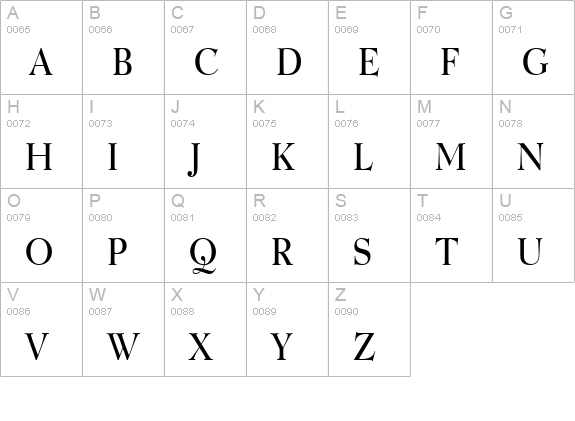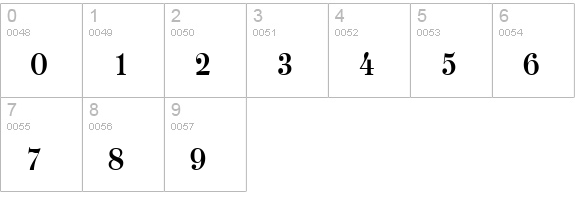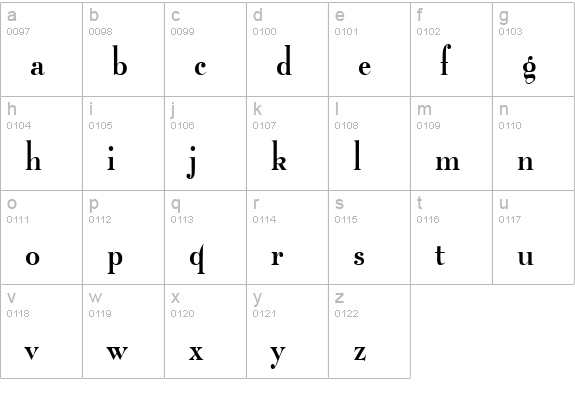
Luciano Condensed Normal is the standard, neutral, condensed-width variant in the Luciano typeface family \xE2\x80\x94 well suited to general body text, paragraphs, and standard typographic work.
Luciano Condensed Normal font is a sleek and modern typeface that exudes sophistication and elegance. With its condensed letterforms and clean lines, this font is perfect for creating a polished and professional look in your design projects. The versatility of Luciano Condensed Normal makes it suitable for a wide range of applications, from branding to editorial design. What makes Luciano Condensed Normal even more appealing is that it is available for free download at FontsMarket.com. This means you can easily access and use this high-quality font in your projects without any cost. Don't miss out on the opportunity to enhance your designs with the stylish and refined aesthetic of Luciano Condensed Normal font. Download it today and elevate your work to the next level!